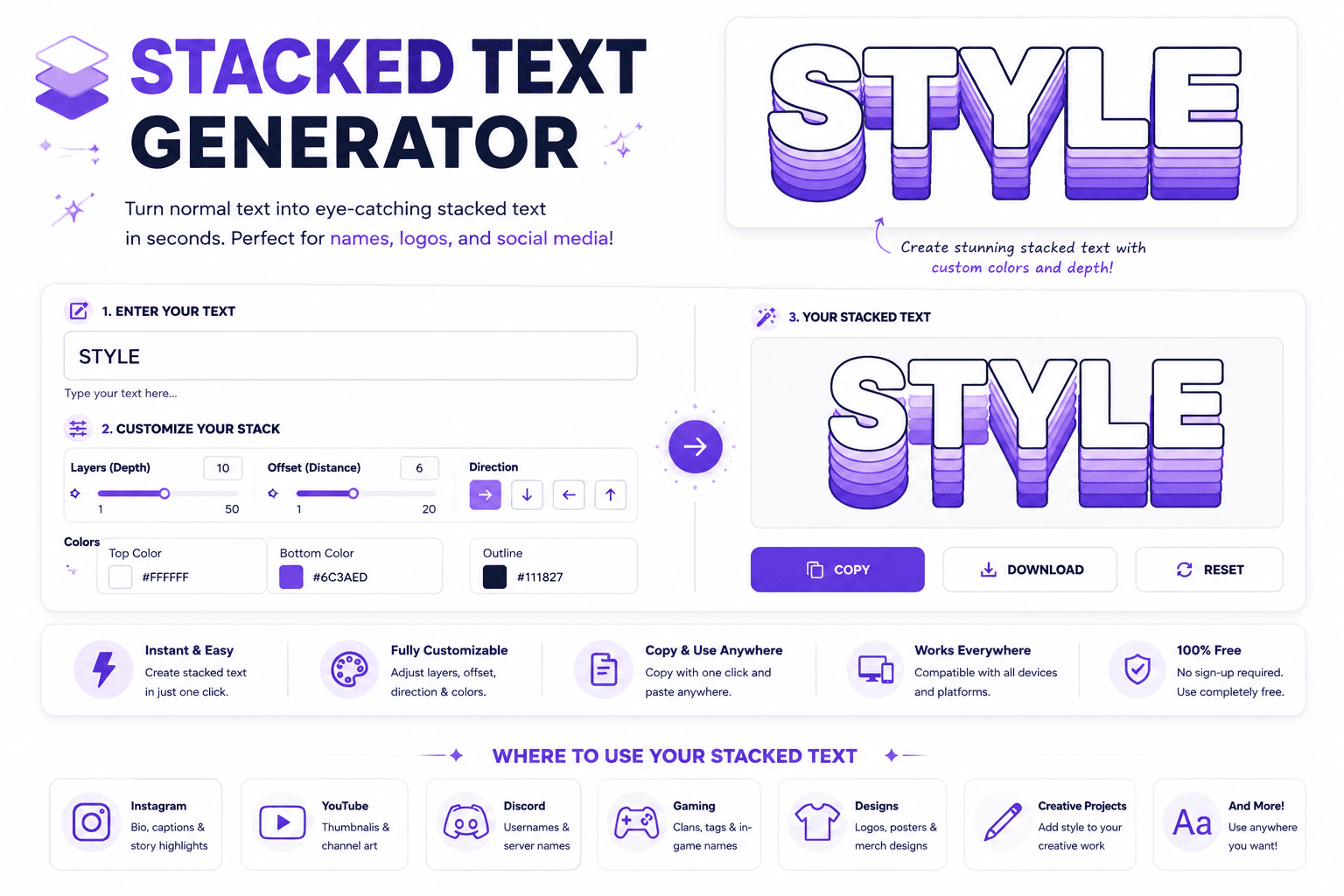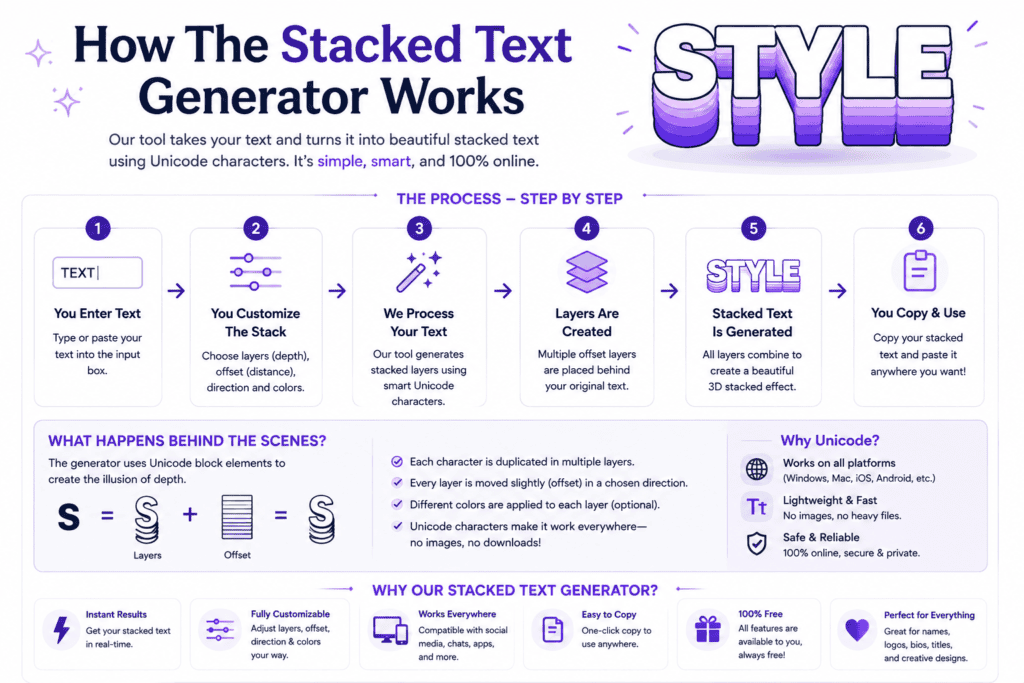
Enter your text and instantly turn it into a stacked, vertical, or line-by-line style.
A stacked text generator turns text into a unique visual effect by arranging characters vertically. This technique helps typography stand out without design skills, making it useful for social media, digital art, and creative projects.
It combines two text layers, placing a top layer above a bottom layer for an eye-catching design. Using Unicode special characters, the output stays compatible with platforms and applications; this online tool supports names and logos.
What Is Stacked Text?
Stacked text turns ordinary digital projects into a visual layer, where characters sit above line. The generator gives creators and designers a unique touch, helping transform a word vertically, bold vertical design styles with sharp.
In practice, multi-layered top-layer characters can merge with Unicode combining marks, creating an eye-catching social media style for bios, usernames, and creative projects. The bottom-layer single line stays custom fonts, format, words, headers, graphics, signs.
How The Stacked Text Generator Works
A stacked layout begins with text fields, yet the key is controlled placement rather than noise. The generator uses Unicode combining characters to position an overlay above a base word, creating a compact visual effect.
In practice, I check the preview before copying because rendering can vary by device or application. The tool builds the upper layer character by character, while the lower line remains readable, preserving spacing and usability.
Using Stacked Text Generator
Start by entering a short word in the first field and a supporting word below. Keep top text shorter, then inspect proper alignment in the preview. Adjust wording when awkward spacing makes the stack uneven.
For using stacked text generator, I recommend testing word combinations rather than forcing a result. A visual impact can come from one upper layer, while the bottom text carries identity, making composition easy to scan.
The stacked text generator works best when treated as a layout utility, not a font replacement. Enter, preview, and copy the result, then test the real field where the name lives before publishing carefully.
When I build stacked names, I favor short phrases and cleanest structures. Avoid long runs when platforms render marks differently; a restrained stack stays sharper, especially where filters or character support alter the final appearance.
Pre-Use Information
Before using a stacked text generator, decide whether your short tag or name needs clean vertical layout. I usually check top text and bottom text together because spacing and alignment affect readability more than effects.
Remember that Unicode rendering varies across platforms, games, and applications. Test the stacked result before publishing, especially for Discord usernames or gaming profiles, and keep a plain base clearly available when combining marks disappear visually.
Who Should Use This Tool
Casual users can explore stacked names, while graphic creators can build custom stacked name logos without installing an app. It suits anyone needing quick stacked signs, social identities, or visually compact lettering for creative projects.
From Discord usernames to gaming profiles, the tool helps people who value readable styling and fast experimentation. Newcomers gain simplicity, while designers can test layouts, preview output, and choose a clean, purposeful visual treatment today.
Tips For Best Results
For best results, build around a short overlay, especially when short headers, labels, or usernames need emphasis. I test each variation in live preview, then adjust spacing until the stack stays readable and balanced across field.
On platforms, verify most platforms behavior rather than trusting the preview alone. Copy clipboard output into the target app, keep the top treatment restrained, and favor stacked fonts when filters or rendering differences threaten readability.
Making Leͥgeͣnͫd Text
Making legend text works best when a short overlay sits above a base word, creating a controlled double line instead of decoration. I test 2 to 6 letters first because forms stay readable and align.
Type a name into two fields, preview the stack, then use the result for social media or a design tool. Keep the lower text dominant, while upper letters add restrained emphasis without sacrificing readability anywhere.
Features Of Our Tool
Our tool keeps creation fast and simple, with full control over spacing and placement. There is no login or setup required, so users can enter letters, test combinations, and produce polished stacks immediately on devices.
From custom layouts to multiple export options, the workflow supports practical projects without clutter. Users can copy clipboard results, download a text file, or combine stacks with Unicode fonts and Superscript effects for distinctive compositions.
Yes, you can copy the stacked result and paste it into a design tool such as Canva or Photoshop. I often test alignment there, because font support, spacing, and rendering can vary across different platforms.
Can I Use This For Discord Names Or Gaming Usernames?
Yes, many games can display a handle when they accept light combining marks. On Discord, filters may change how it renders, so always test the real field before committing effort, especially when choosing a nickname.